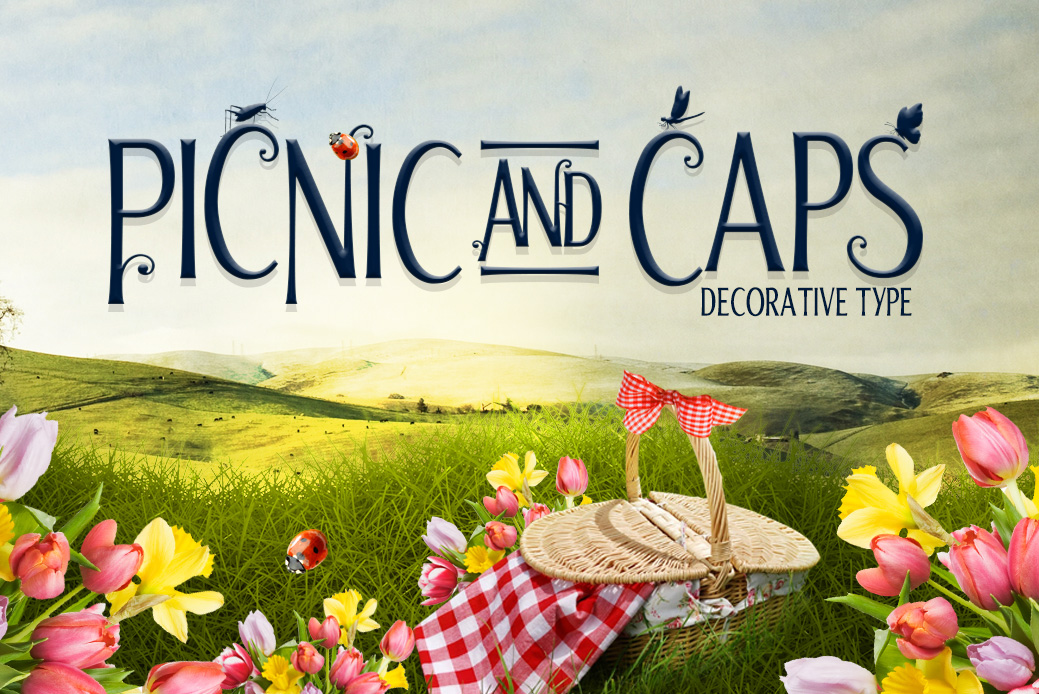
Introducing Picnic Caps Font: Unleash Your Creative Genius
Are you tired of generic and overused fonts that fail to inspire? Look no further! We proudly present the mesmerizing Picnic Caps Font, a sans-serif masterpiece designed by the innovative minds at DesignSomething. This font is not just a collection of letters; it's an artistic journey waiting to be explored.
With meticulous attention to detail, every letter in the Picnic Caps Font has been crafted to perfection, ensuring a truly unique and captivating experience. Prepare to be amazed as this beautiful decorative font transports your designs to new heights of creativity.
The Picnic Caps Font boasts an impressive array of features that will set your work apart from the mundane. From elegant capital letters that demand attention to alternative caps that add a touch of sophistication, this font offers endless possibilities. But it doesn't stop there. Prepare to be enchanted by the decorative glyphs that will breathe life into your designs, making them truly unforgettable.
Unleash the power of the Picnic Caps Font and watch as your designs come to life with a newfound vibrancy and charm. Whether you're a graphic designer, a marketer, or simply a creative soul seeking to make a statement, this font will be your secret weapon.